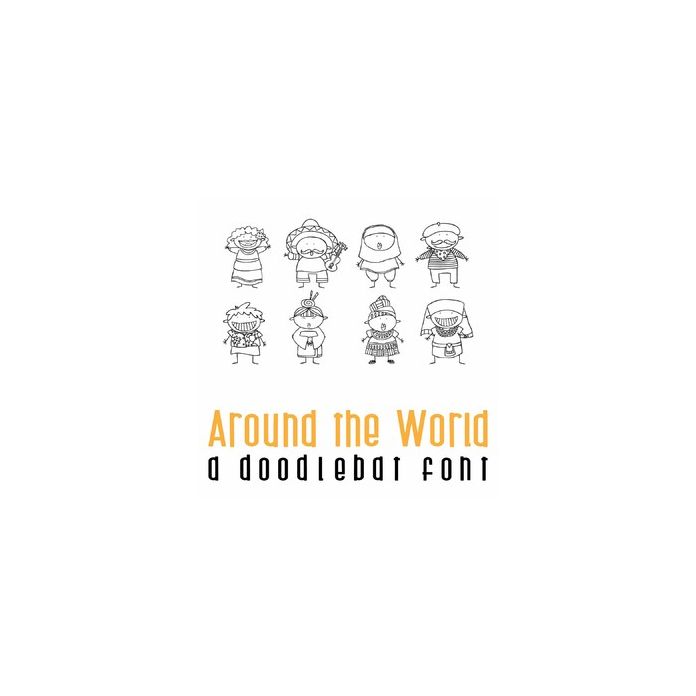
This fun full-color doodlebat font features 26 adorable stick figure style characters dressed in different nationalities, perfect for cards, crafts, gifts, scrapbook pages, planner stickers, and more!